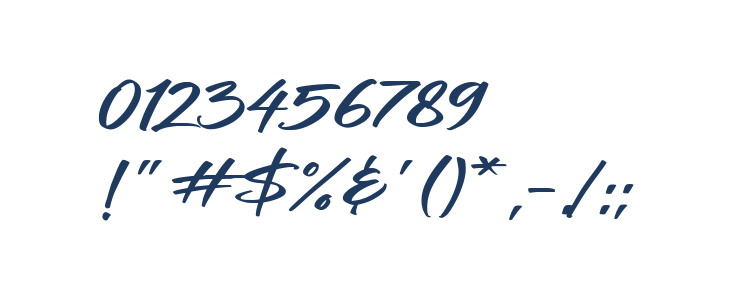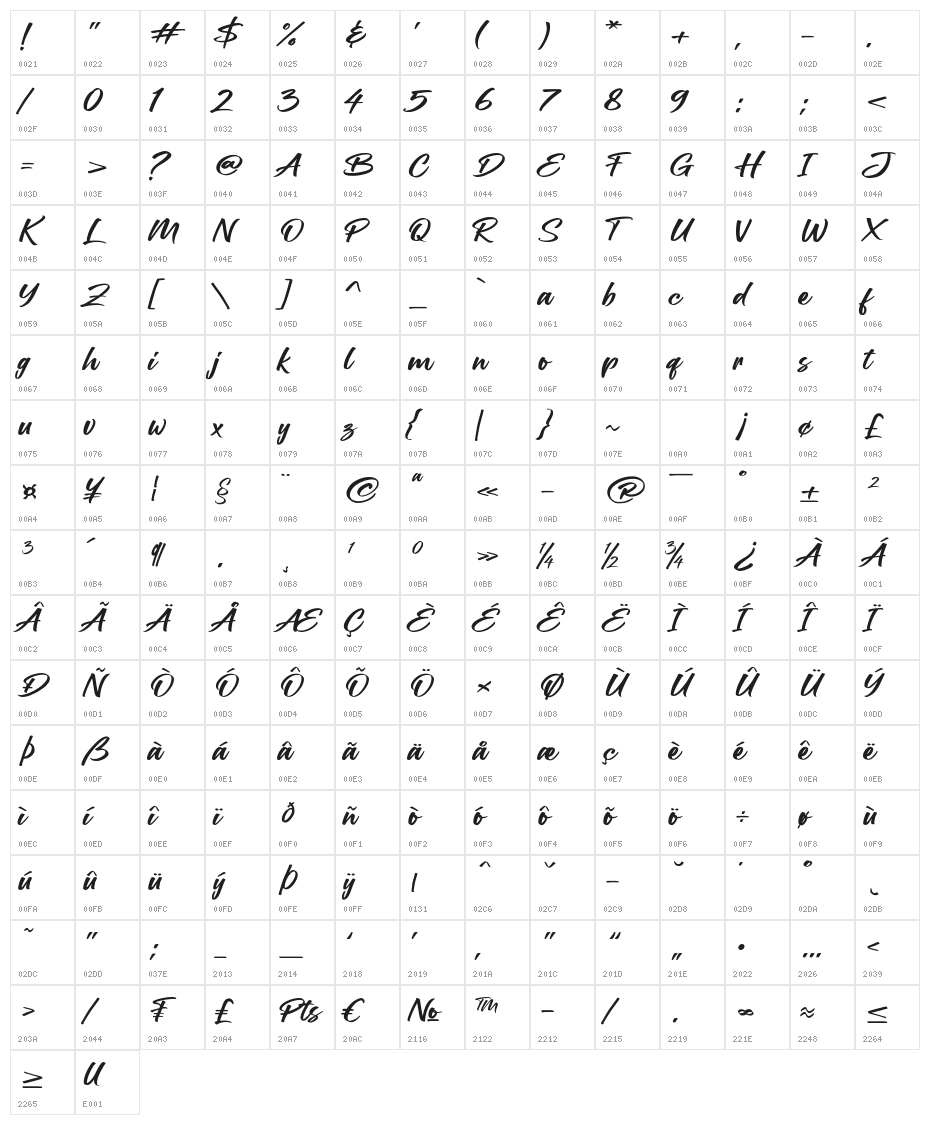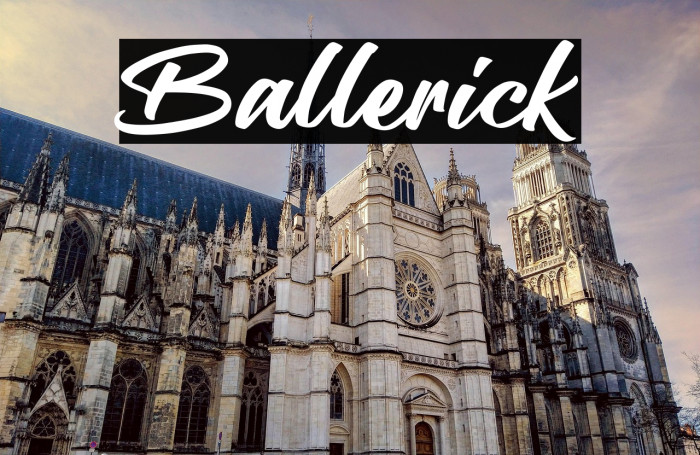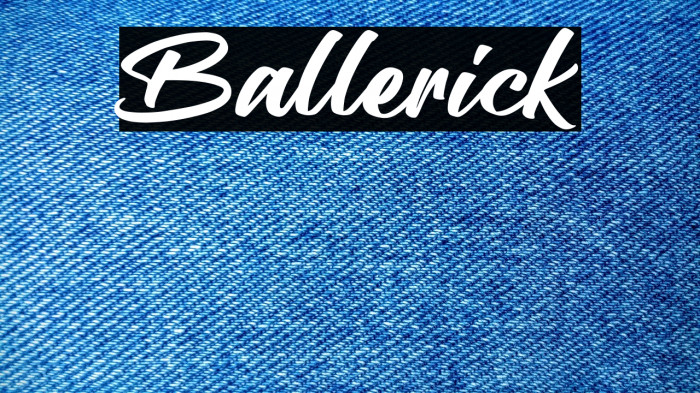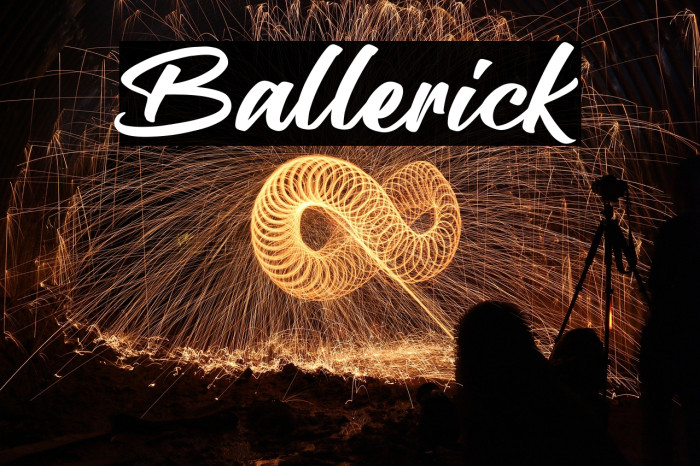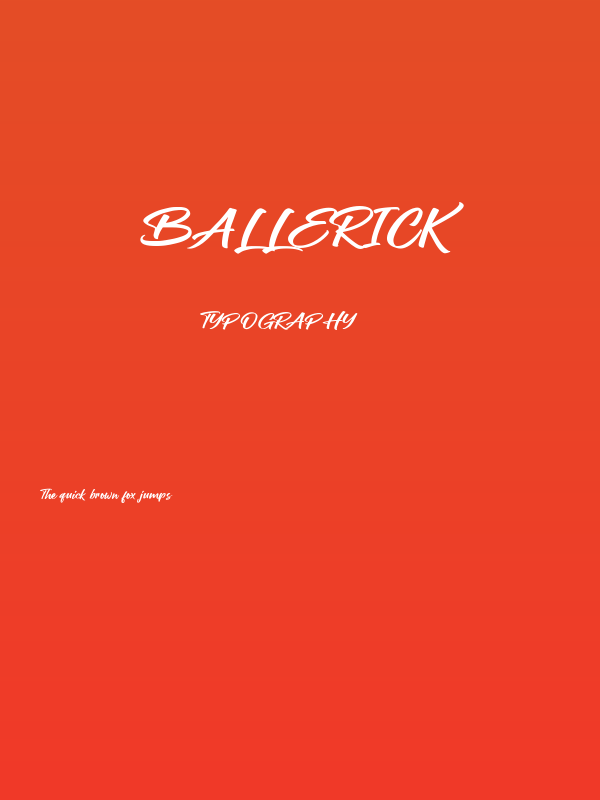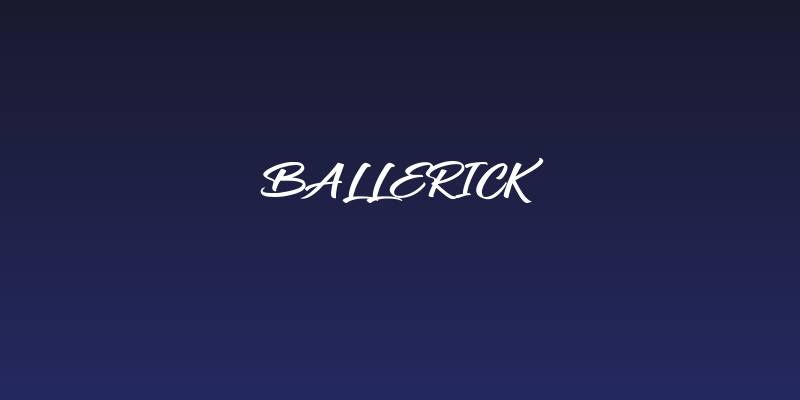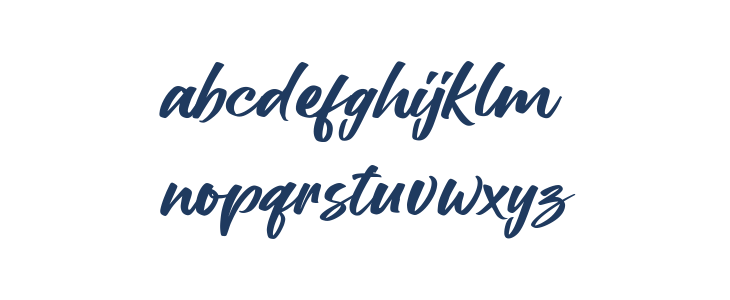
Ballerick Font
Ballerick Description
This font exudes a dynamic and energetic style with its bold, flowing script. The characters are crafted with a brush-like appearance, giving it a handwritten feel that is both elegant and casual. The uppercase letters are slightly slanted, adding a sense of movement and flair, while the lowercase letters maintain a consistent rhythm. The numerals are distinctive and maintain the same fluidity as the letters. Special characters are integrated seamlessly, enhancing the font's versatility. Its overall design is perfect for projects that require a personal touch or a creative edge.
Use CaseLogos, Headlines, Invitations
Proposed ProjectsIdeal for branding, invitations, greeting cards, and creative posters.